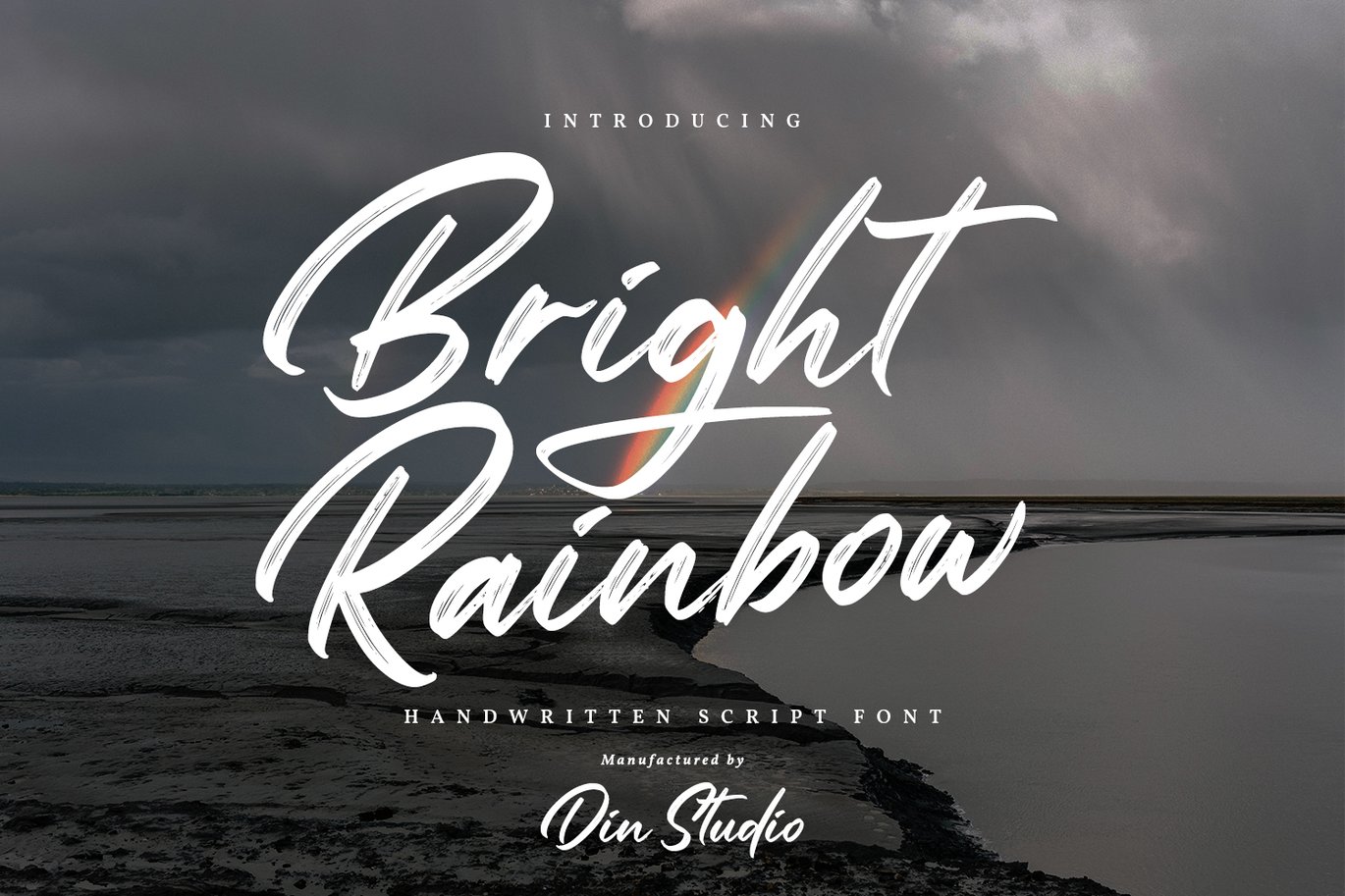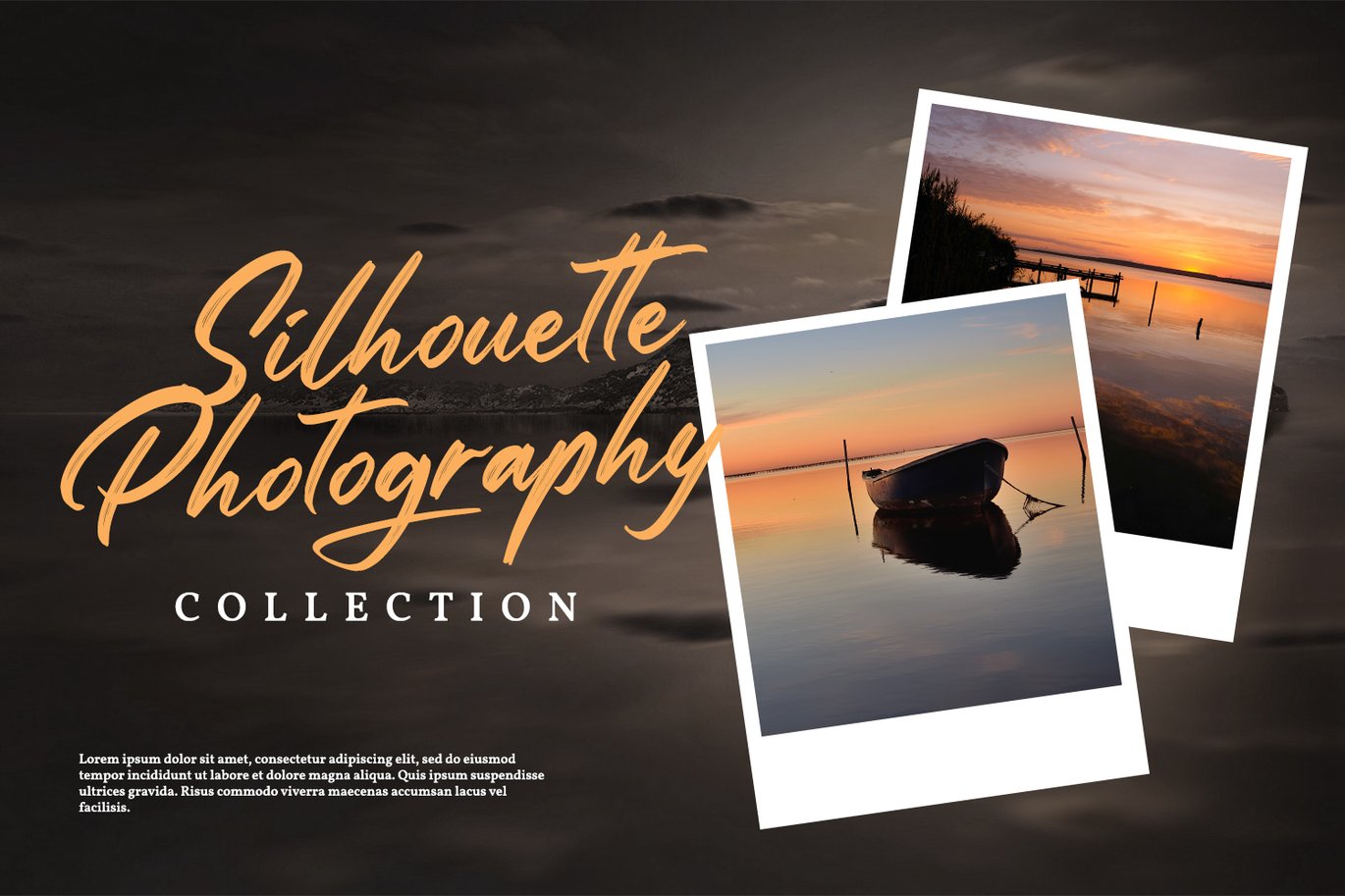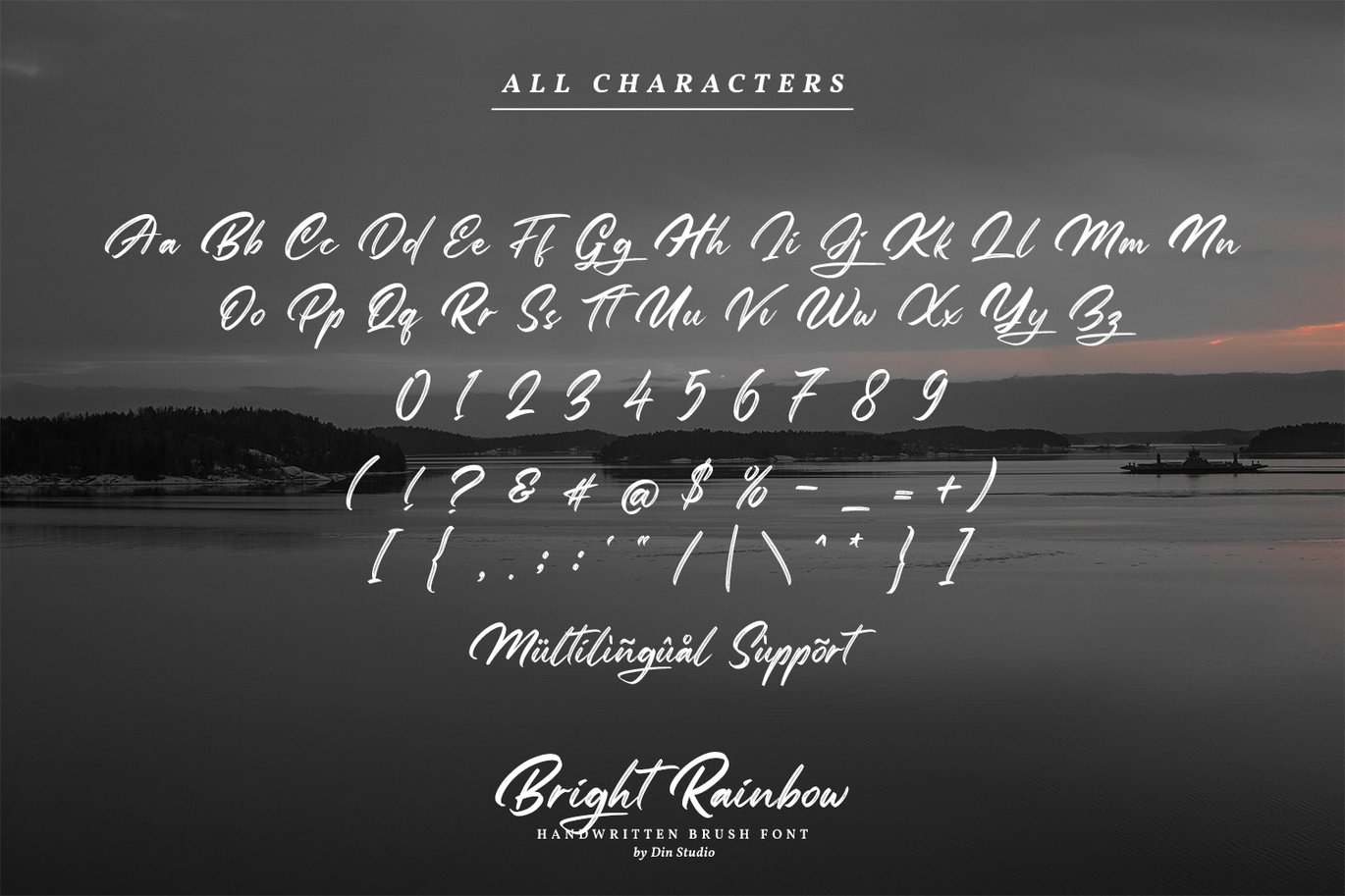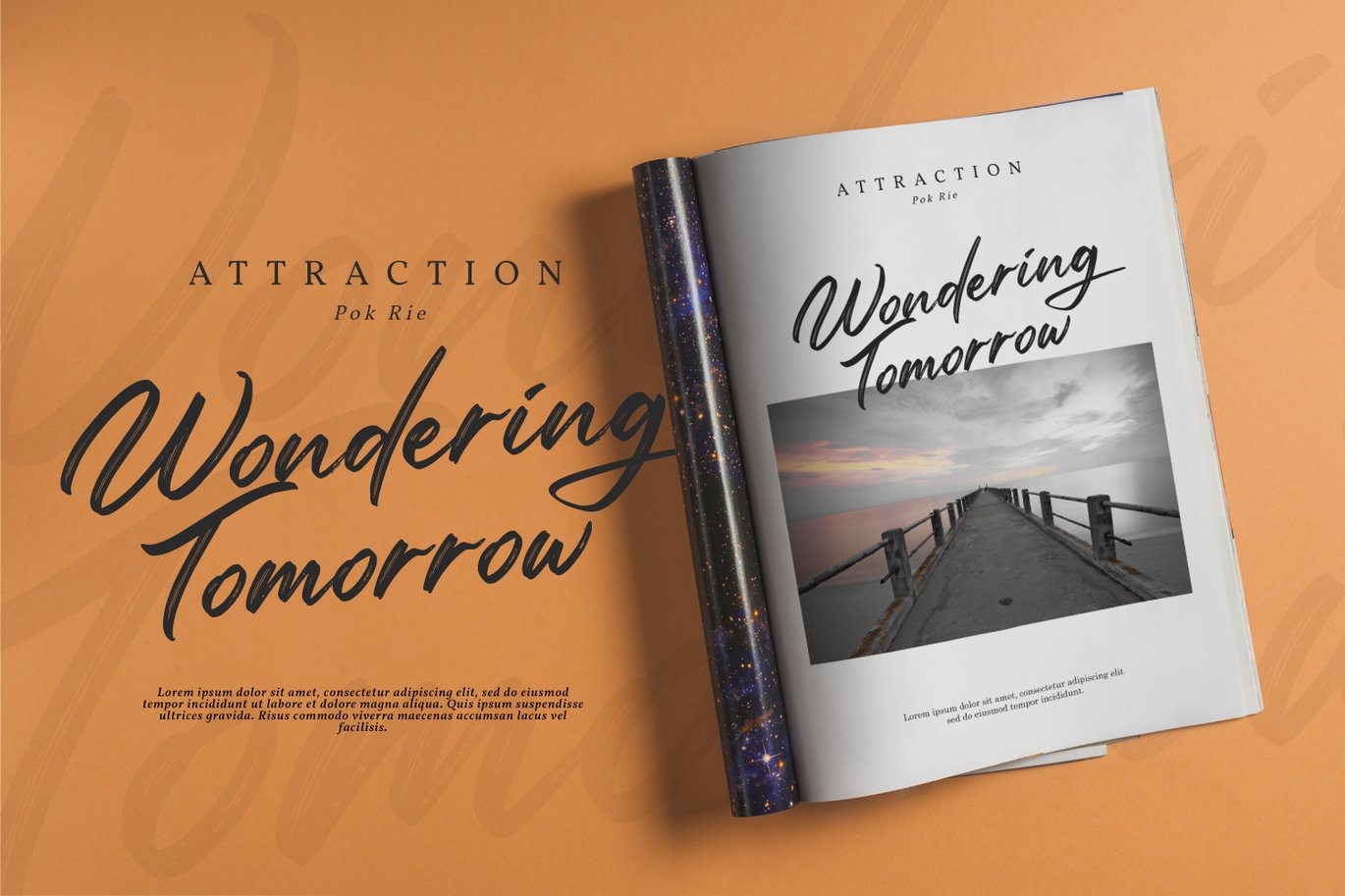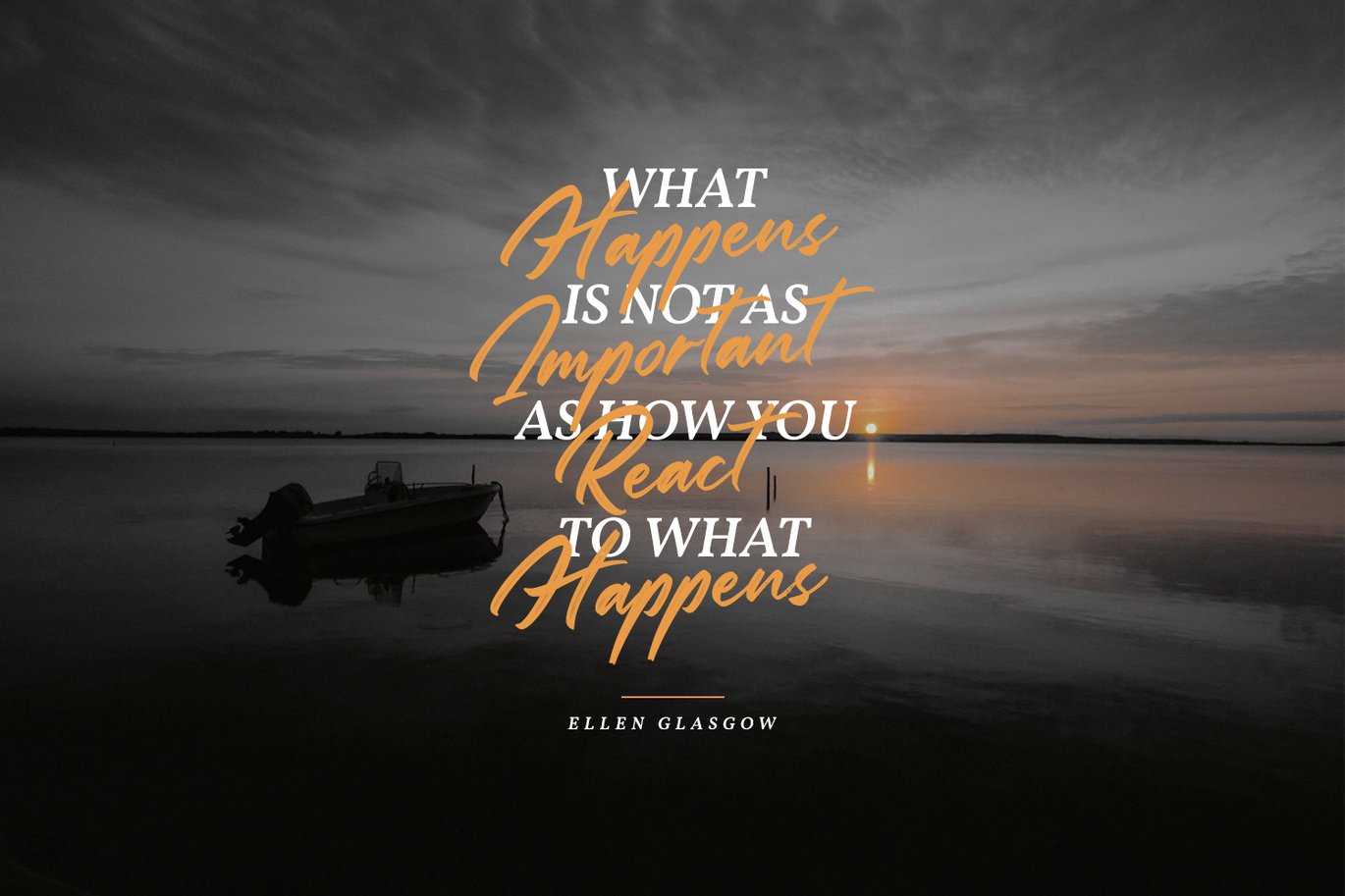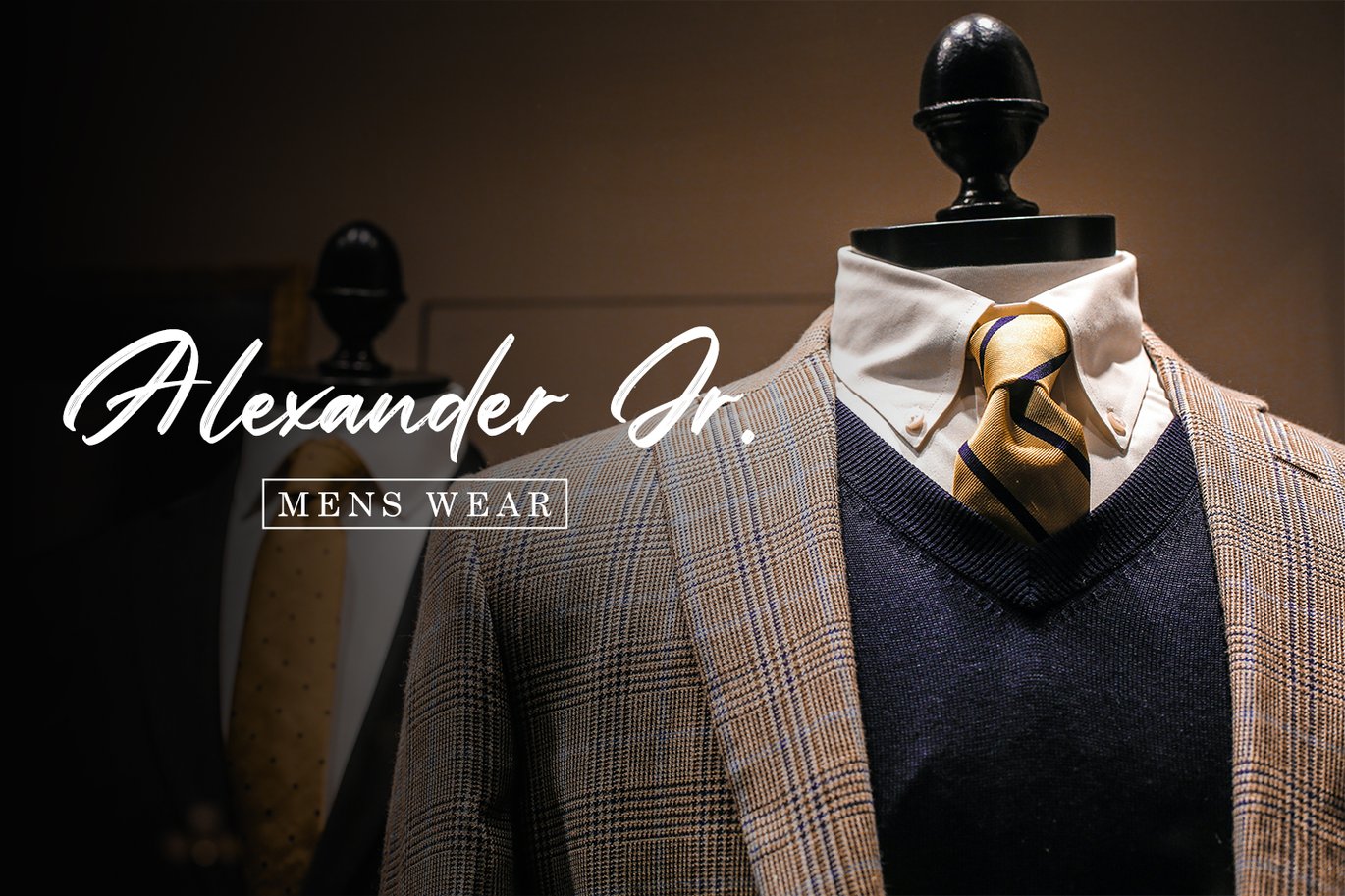
Bright Rainbow-Classy Brush Font
Bright Rainbow is a classy brush font. The brush combined with handwritten font will make your design project more beautiful. Made for any professional project branding. It is the best for logos, branding and quotes. Every letter has a unique and beautiful touch.